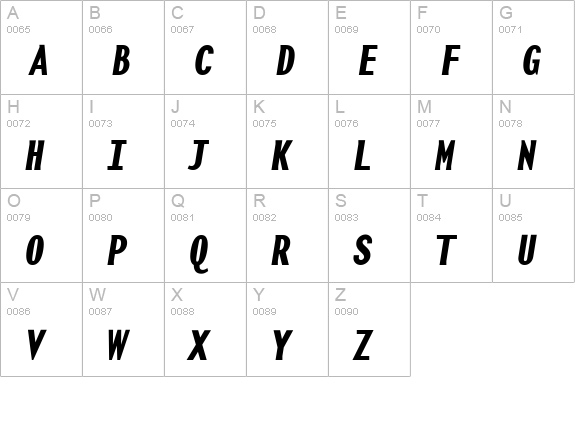
BaseMono-Narrow Bold Italic is a strong, high-contrast, condensed-width, italic variant in the BaseMono typeface family \xE2\x80\x94 well suited to headlines, attention-grabbing titles, and strong calls-to-action.
BaseMono-Narrow Bold Italic is a striking and modern typeface that exudes confidence and sophistication. Its bold and italic design adds a touch of flair to any project, making it perfect for headlines, posters, and branding materials. The narrow width of the font allows for efficient use of space while maintaining readability. This font is free to download at FontsMarket.com, where you can easily access this versatile typeface for all your design needs. Whether you're looking to make a bold statement or add a touch of elegance to your work, BaseMono-Narrow Bold Italic is sure to impress with its sleek lines and strong presence. Download it today and elevate your designs to the next level.